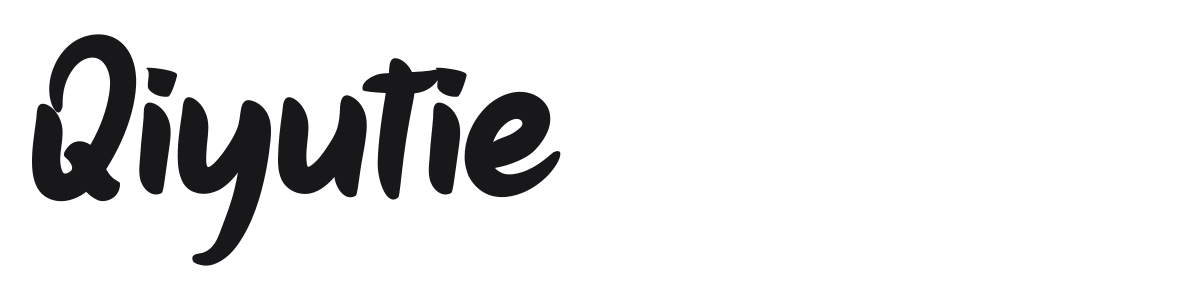
Qiyutie
QiyutieLicense is a chunky, casual script with the spontaneous energy of a bold marker. Its thick rounded strokes and naturally uneven baseline feel genuinely hand-drawn rather than mechanical. Great for logotypes, packaging, and any project that needs warmth without being precious.